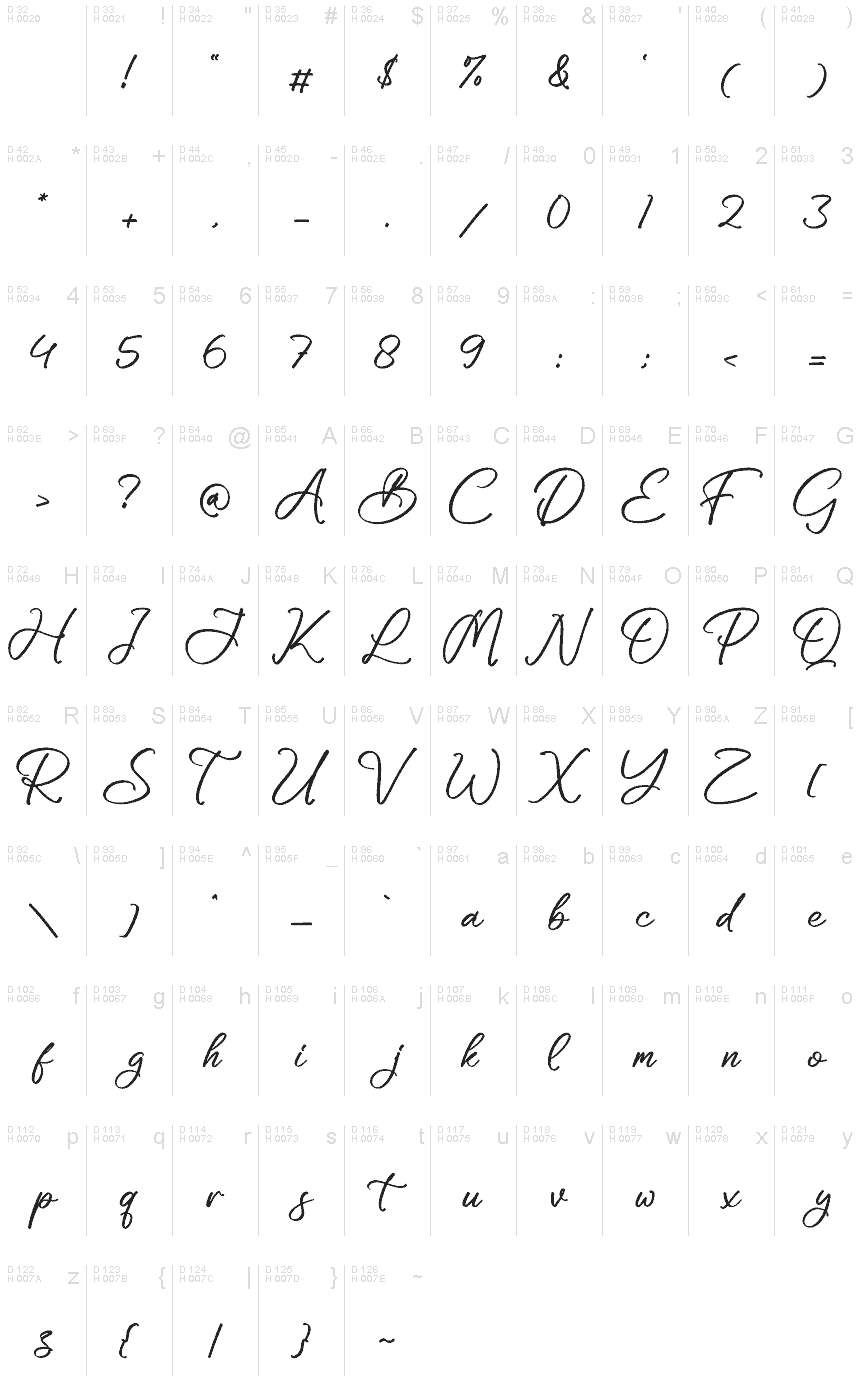
Bonestay
Bonestay font by Letterena Studios is a free handwritten font featuring modern calligraphy influences. Elegant and sophisticated, its flowing lines and graceful curves make it an expressive addition to every written piece. A true example of beauty and class, Bonestay comes with a light weight which further accentuates its authenticity.
Designers can add Bonestay to logo design projects, business cards for brands that deserve the best, invitations for weddings or engagements, online platforms from websites to blogs, ads both offline like storefronts or billboards, and online like posts or ads. It can also be used for stationery items such as certificates or magazines.